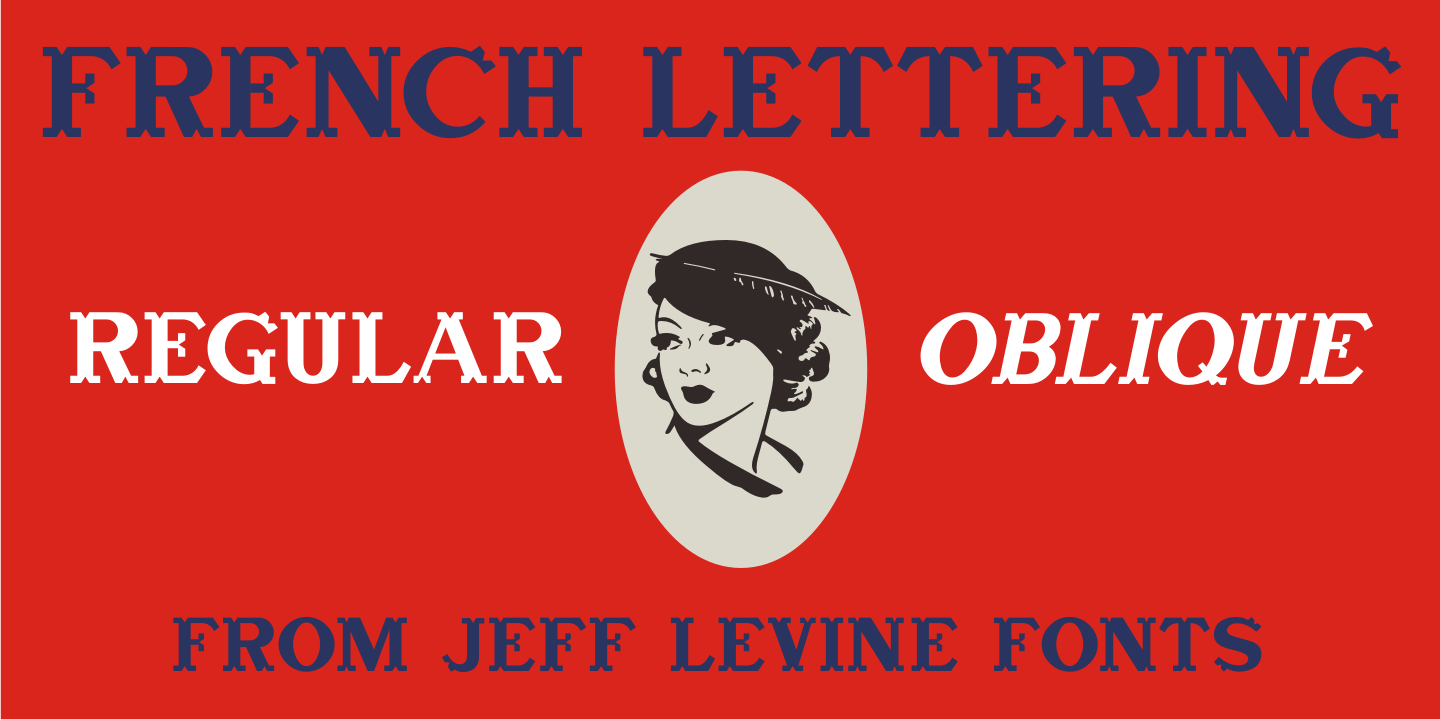
French Lettering
An example from the vintage lettering book '100 Alphabets Publicitaires” ('100 Advertising Alphabets”) provided the inspiration for French Lettering JNL. This stylized Victorian [or Western] type face evokes the era of fanciful lettering design from the late 1800s.
Available in both regular and oblique versions.